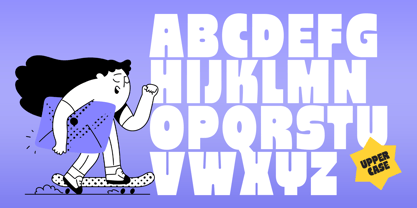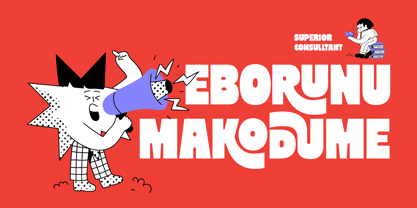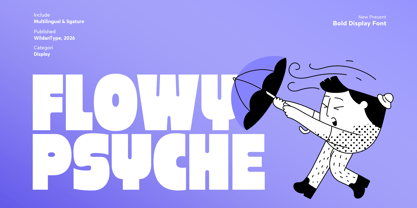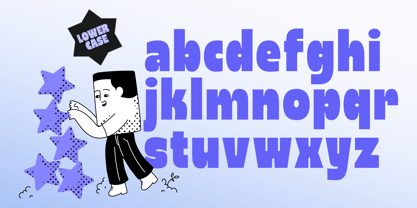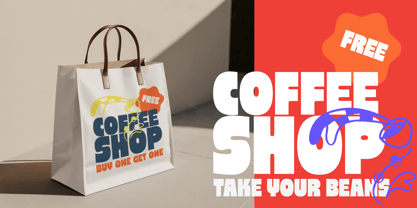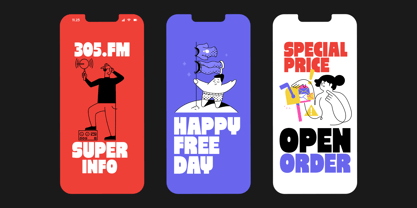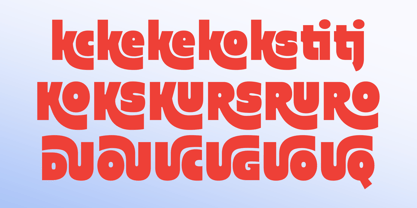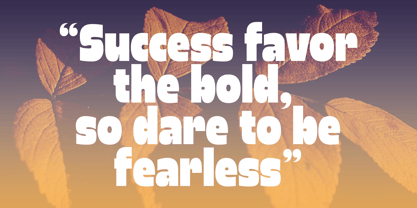
Flowy Psyche
by Wildan Type
The Flowy Psyche Font Family was designed by Wildan Suprian Syah and published by Wildan Type. Flowy Psyche contains 2 styles and family package options. More about this family
Flowy psyche - Bring the soul of the seventies back to your designs with our Retro Psychedelic Display Font! Inspired by the vibrant music posters and pop culture of the 1970s, this font features bold curves, chunky characters, and a mesmerizing flow. Flowy Psyche isn’t just a typeface; it’s a visual statement. With its ultra-bold weight and artistic "liquified" swashes, your projects will instantly radiate an authentic, vintage "groovy" energy. Why You’ll Love This Font: Bold & Commanding: High-impact characters designed to grab attention immediately. Authentic Retro Vibe: Perfect for projects leaning into vintage, psychedelic, disco, or boho-chic aesthetics. Creative Alternates: Includes unique flowing ligature characters for a custom, hand-lettered look. Universal Compatibility: Pairs beautifully with both neon palettes and earthy, muted tones.
Designers: Wildan Suprian Syah
Foundry: Wildan Type